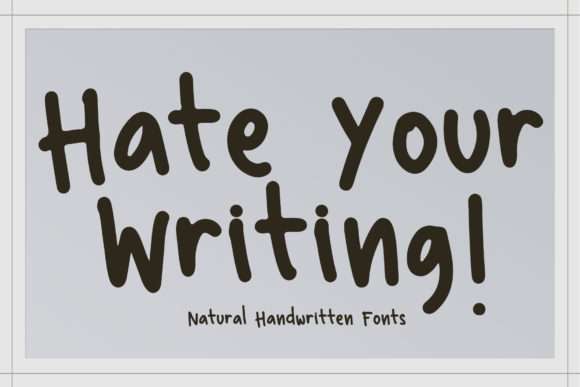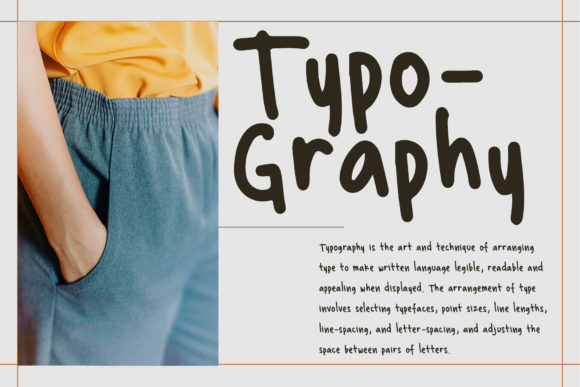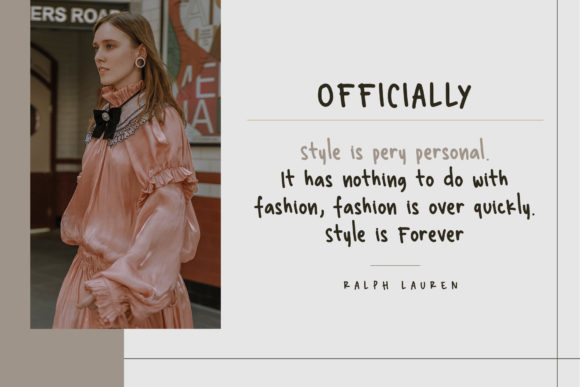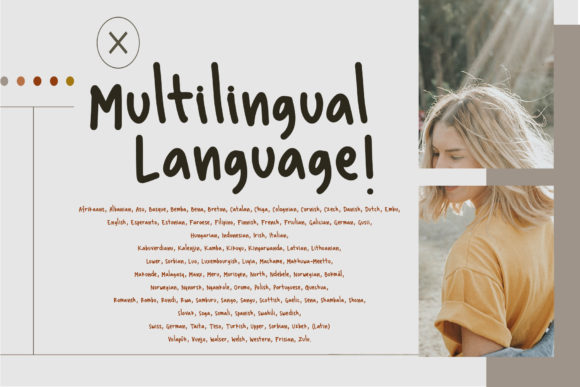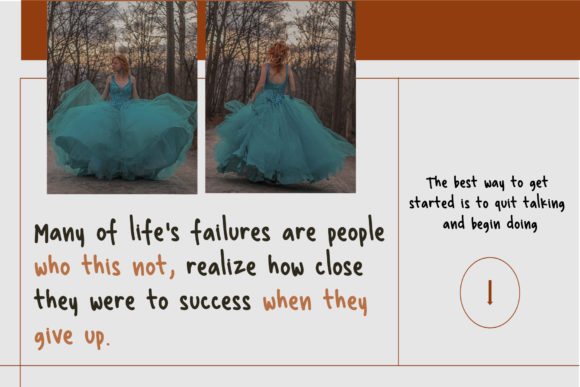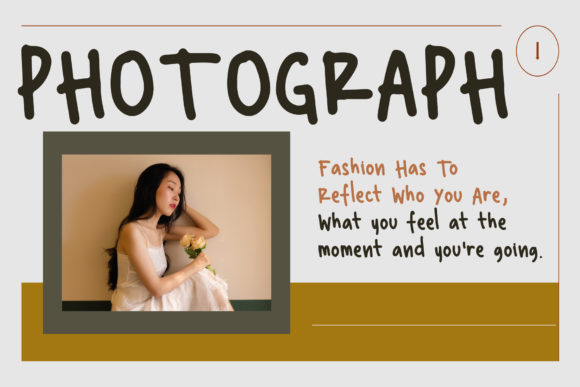
Hate Your Writing Font
About Hate Your Writing Font
Hate Your Writing is a natural, friendly and informal handwritten font. No matter the topic, this font will be an incredible asset to your fonts’ library, as it has the potential to elevate any creation.